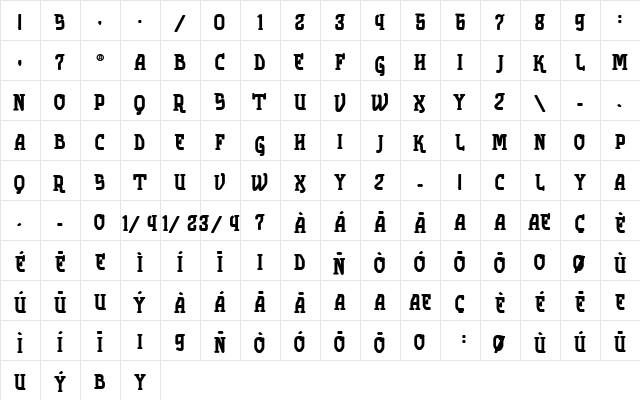
vtks solution bold Regular
| Foundry | douglas vitkauskas |
| Designer | douglas vitkauskas |
Design Context for vtks solution bold Typeface
vtks solution bold takes a measured approach to typography — its balanced proportions and neutral character make it a reliable workhorse for both digital and print work. Its bold stroke weight gives it real presence on the page.